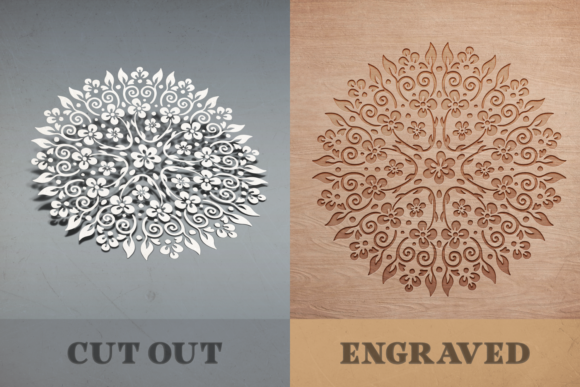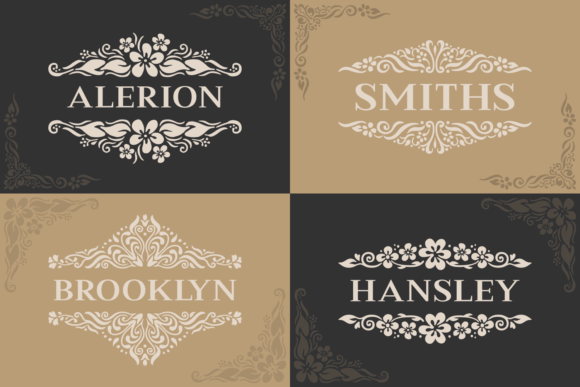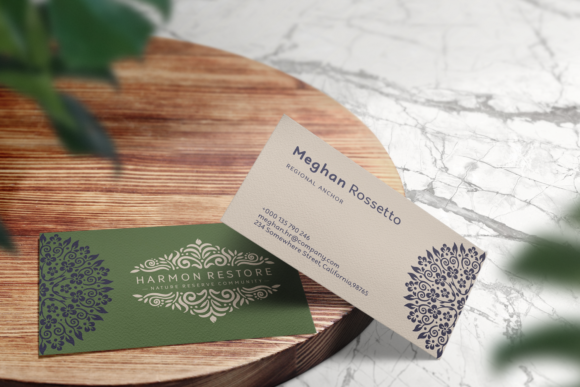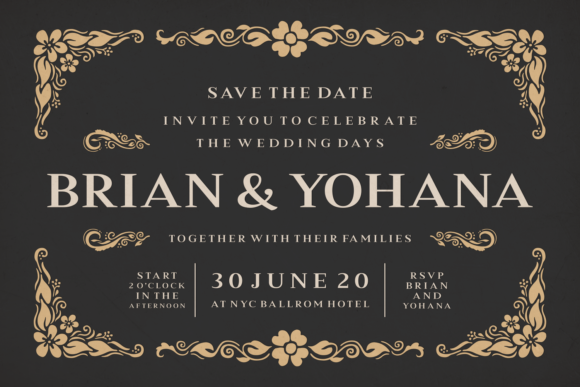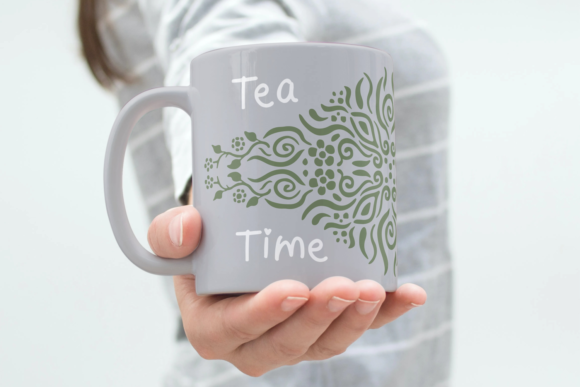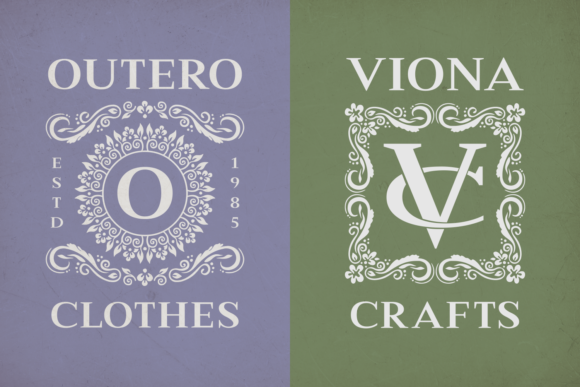
Quaraments Font
About Quaraments Font
Quaraments sounds like an incredibly unique and beautiful dingbats font that can add a special touch to your crafting projects. With its beautiful styles, this font has the potential to elevate your designs to the next level. Here are some ways you can use the Quaraments font to enhance your crafting projects:
1. Handmade Cards: Create stunning handmade cards using the Quaraments font. The beautiful styles of the dingbats can be used as decorative elements, borders, or even focal points on your cards. Whether it’s for a birthday, anniversary, or any special occasion, the Quaraments font will add an elegant and sophisticated touch to your designs.
2. Scrapbooking: Add a touch of elegance to your scrapbooking projects with the Quaraments font. Use the beautiful styles of the dingbats as decorative accents, frames, or to highlight important moments in your scrapbook pages. The font’s unique and intricate designs will make your scrapbook layouts truly stand out.
3. Home Decor Crafts: Incorporate the Quaraments font into your home decor crafts. Use the dingbats to create stencils for wall art, wooden signs, or even pillows. The font’s beautiful styles will add a touch of sophistication and personalization to your home decor projects.
4. Gift Wrapping: Make your gift wrapping extra special with the Quaraments font. Use the dingbats as decorative elements on gift tags, wrapping paper, or ribbons. The font’s unique styles will add a luxurious and refined look to your gift presentations.
5. Personalized Stationery: Design your own personalized stationery using the Quaraments font. Use the dingbats to create monograms, borders, or patterns on notepads, letterheads, or envelopes. The font’s beautiful styles will give your stationery a bespoke and elegant touch.
6. Wedding Crafts: Add a touch of romance and sophistication to your wedding crafts with the Quaraments font. Use the dingbats to create wedding invitations, place cards, or table numbers. The font’s unique and beautiful designs will enhance the overall aesthetic of your wedding decor.
Remember to experiment with different combinations of the Quaraments font, other typography, and color schemes to create truly unique and visually stunning designs. Let the Quaraments font elevate your crafting projects and bring an extra level of beauty and elegance to your creative endeavors.